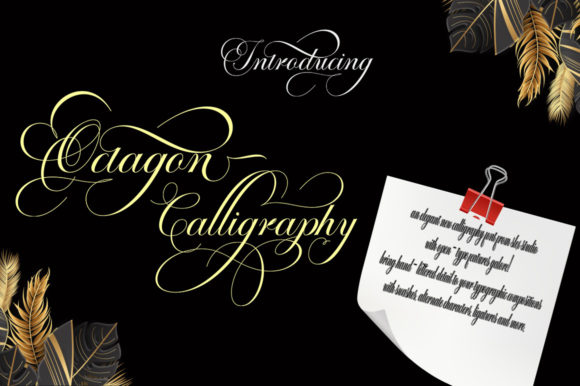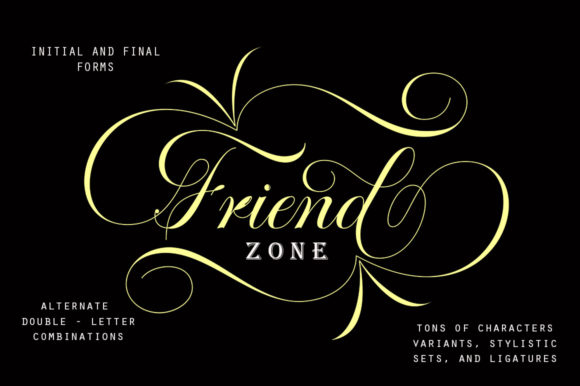
Octagon Calligraphy Font
db-ku.com - Script & Handwritten -- Octagon Calligraphy feels equally charming and elegant. It looks stunning on wedding invitations, thank you cards, quotes, greeting cards, logos and more. This font is PUA encoded which means you can access all of the glyphs and swashes with ease!